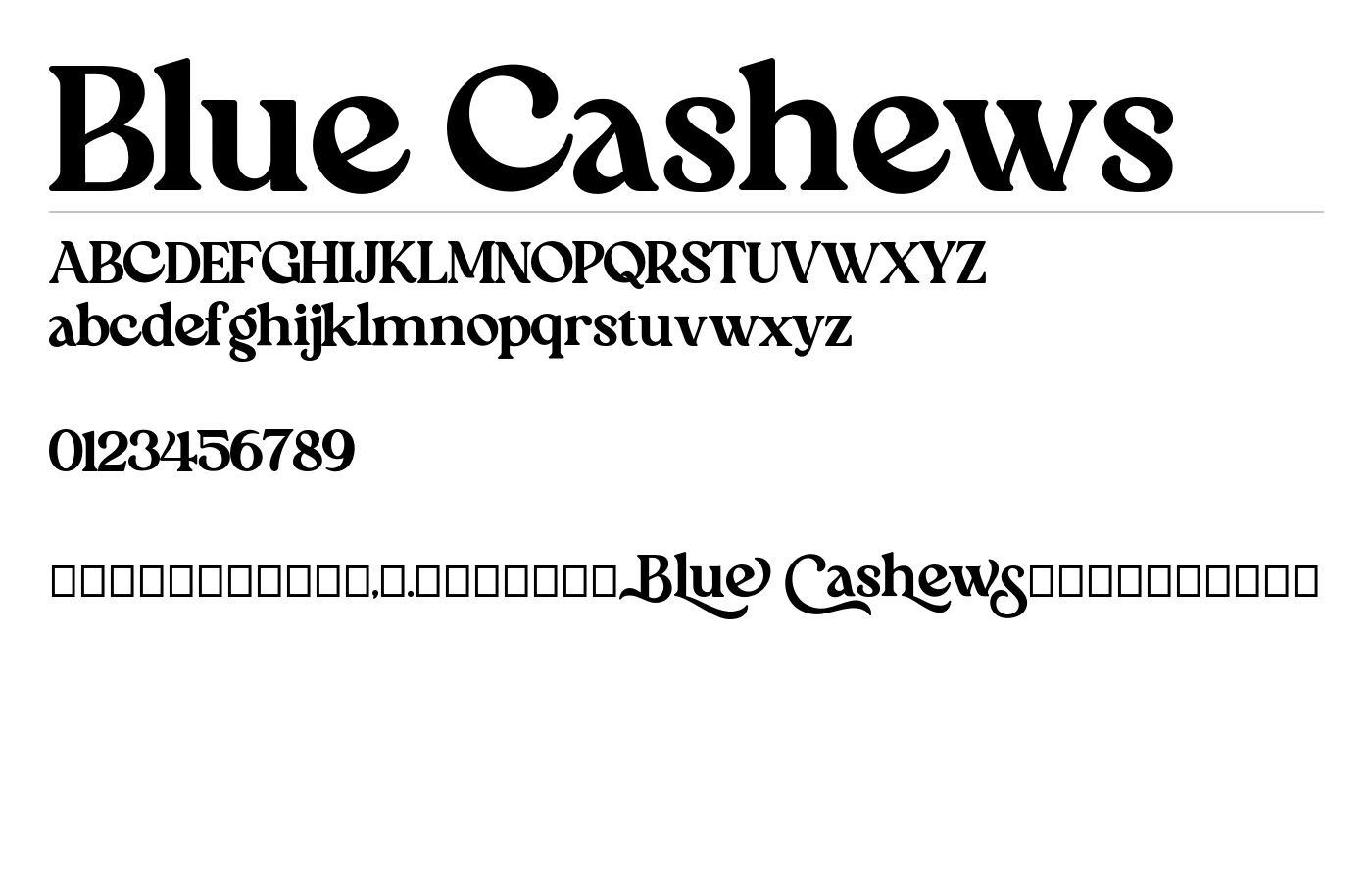
Blue Cashews is a distinctive serif font with a vintage flair, featuring medium weight and slightly condensed letterforms. Its moderate contrast and unique, playful curves—including swirled terminals and quirky details in characters like the lowercase "s"—give it an elegant yet approachable personality. Ideal for branding, packaging, and headlines, this font brings a charming, whimsical touch that stands out while maintaining readability.
Blue Cashews Font
About Blue Cashews Font